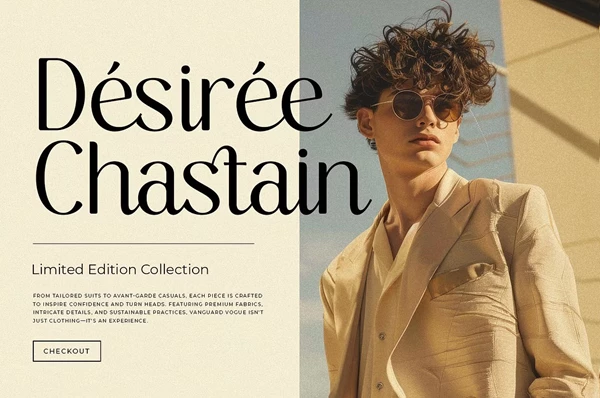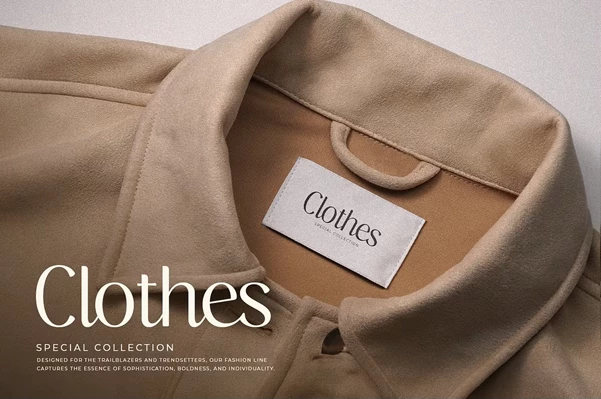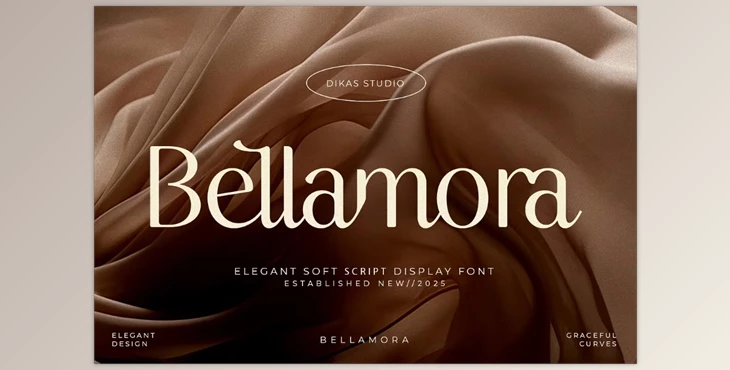
Bellamora - Aesthetic Script Font:
The Bellamora font is a trendy script font that has been designed with elegance in mind, along with sophisticated charm, which makes it the perfect fit for projects that are aimed at a refined audience. This typeface comes with numerous creative design options due to its collection of alternate characters and elegant ligatures, which help add a lot of flair to your designs. Bellamora is the perfect font for luxury branding, editorial headlines, or even wedding invites, along with providing the elegance needed for these works.
Some great features of Bellamora - Aesthetic Script Font:
- Supports a complete character set of uppercase and lowercase letters.
- Supports a full range of punctuation and numbers.
- Support for various languages increases usability globally.
- Supports multiple creative languages with various alternate characters.
- Supports elegant typography with enhanced ligatures.